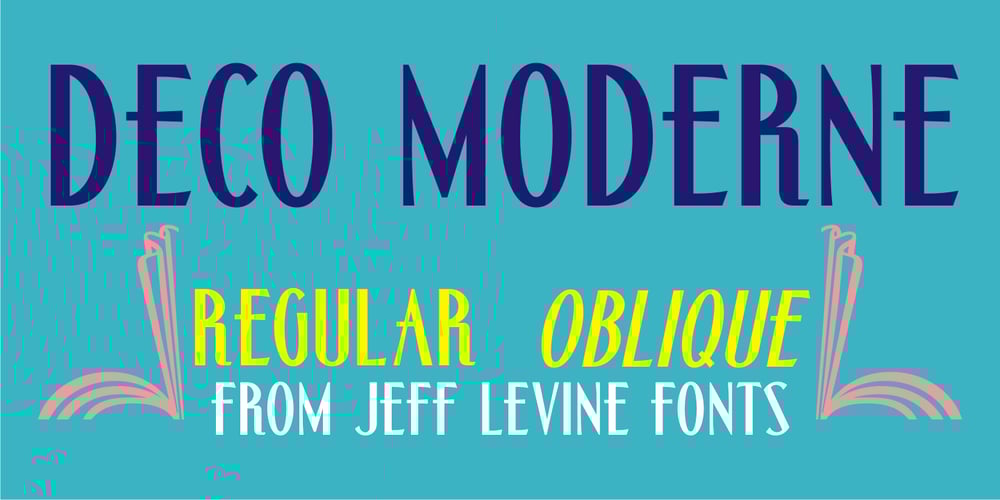
Deco Moderne JNL Font Family was designed by Jeff Levine and published by Jeff Levine. Deco Moderne JNL contains 2 styles and family package options. The model for Deco Moderne JNL was the hand lettered title on the sheet music cover of “Did You Ever See A Dream Walking” (from the 1933 Paramount musical “Sitting Pretty” starring Jack Oakie, Jack Haley and Ginger Rogers). The typeface is available in both regular and oblique versions.